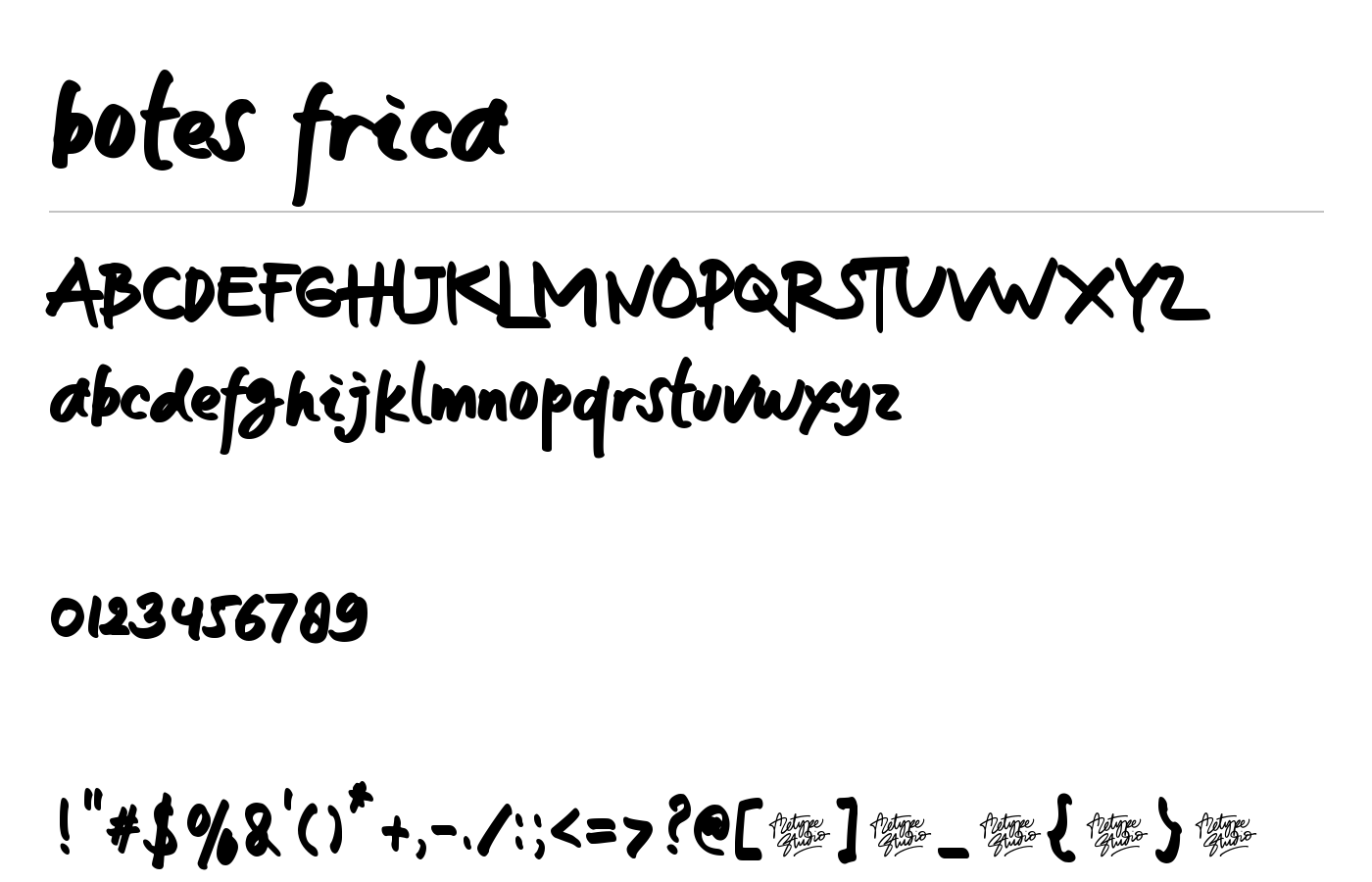
Botes Frica is a playful and energetic handwritten font with a casual, organic feel. Its bold strokes and uneven letterforms create a dynamic and friendly vibe, making it perfect for informal branding, creative projects, and fun headlines. This font works well where a personal touch or lively expression is needed, adding personality and warmth to designs.
botes frica Font
About botes frica Font
| Font family | botes frica Font |
| Designer | Nirman and Muh Aswar by Azetype Studio |